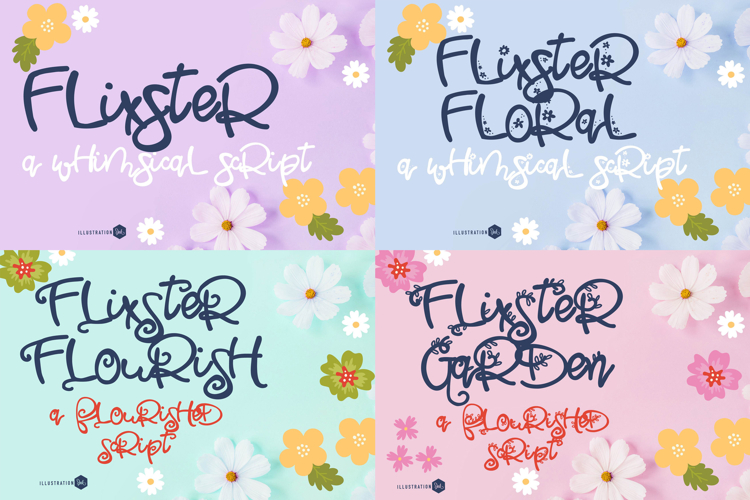
Flixtster Font Family
This hand-crafted font is a hand-written script/print with many variations, including some with flourishes, some with leaves, and some with florals.